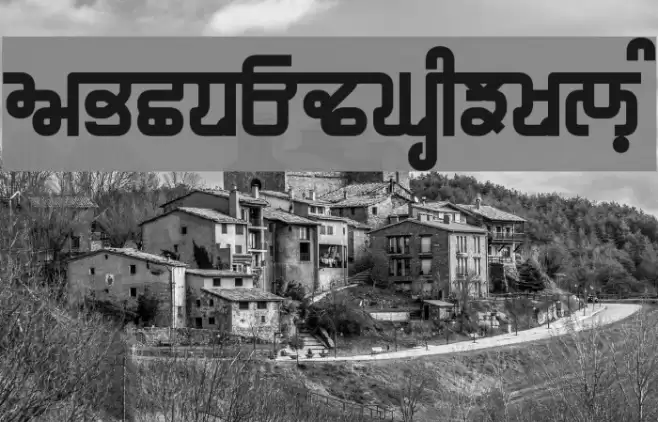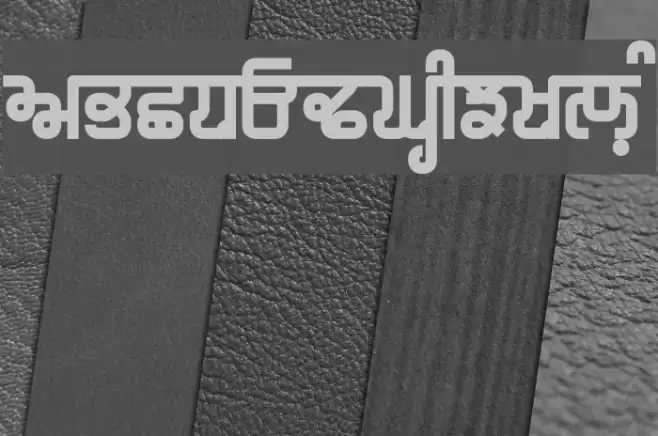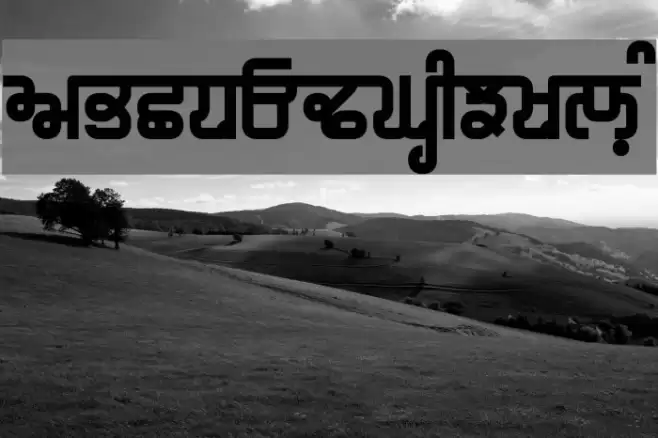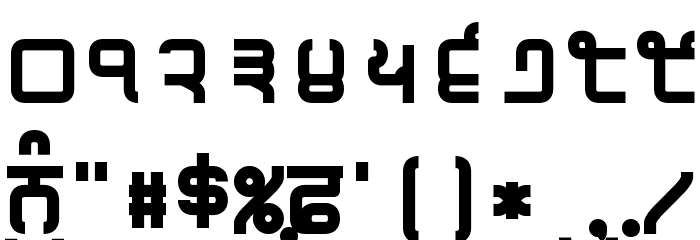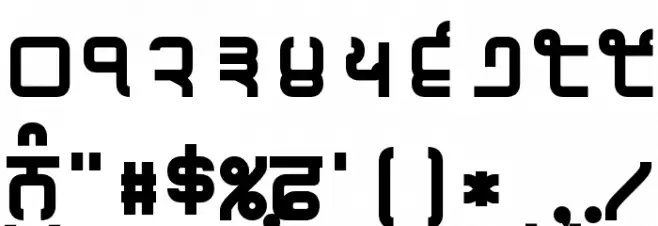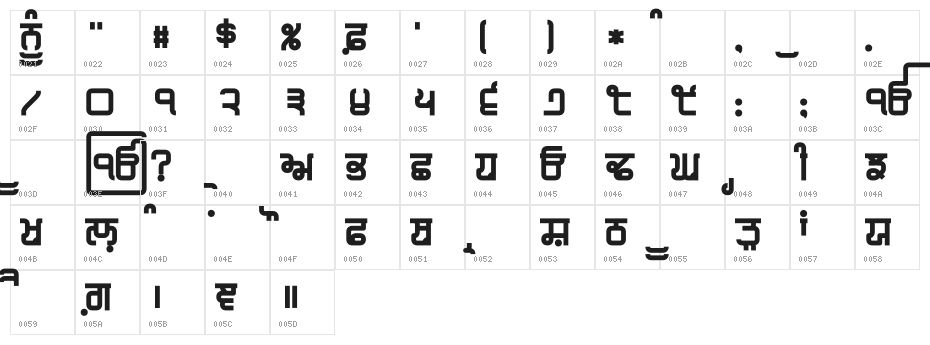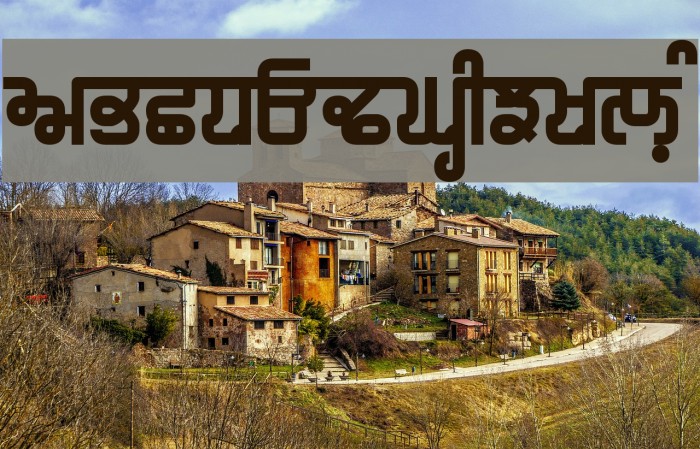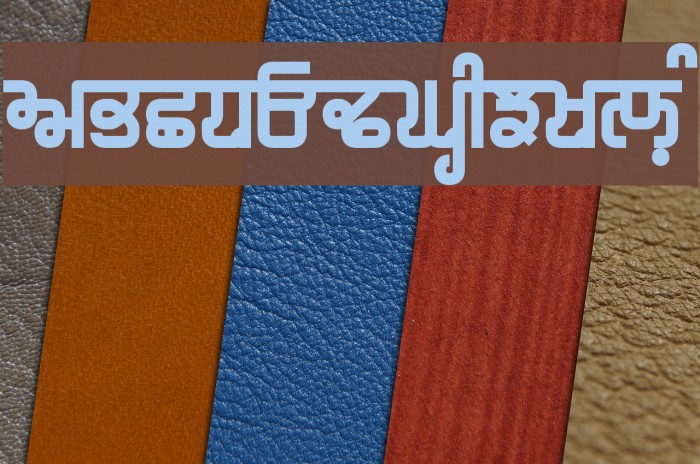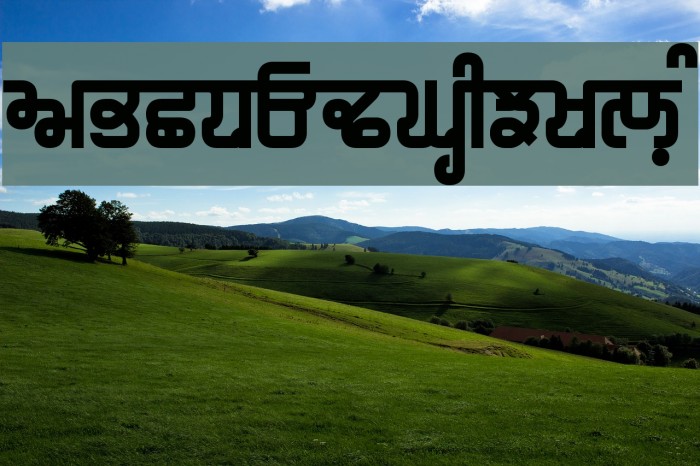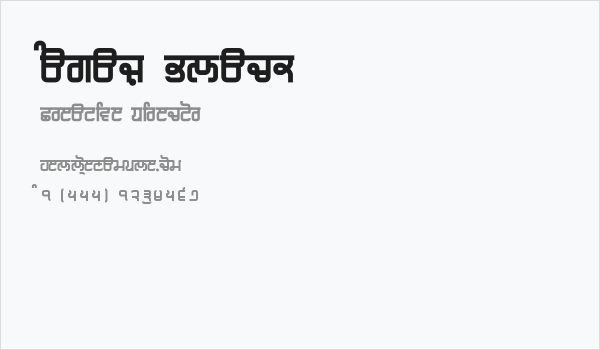
Magaz Black Font
Magaz Black Description
This font features a bold and striking design with thick, uniform strokes that create a strong visual impact. The characters are highly stylized, with a geometric and angular appearance that gives them a modern and futuristic feel. The font's structure is robust, with consistent line weights and a solid presence on the page. It includes a full set of numerals and a variety of special characters, making it versatile for different design needs. The overall aesthetic is clean and powerful, suitable for making bold statements in any project.
A bold, geometric font with a modern, futuristic style from Asian fonts.
- Proposed Projects: Ideal for branding, posters, headlines, and any design requiring a strong visual impact.